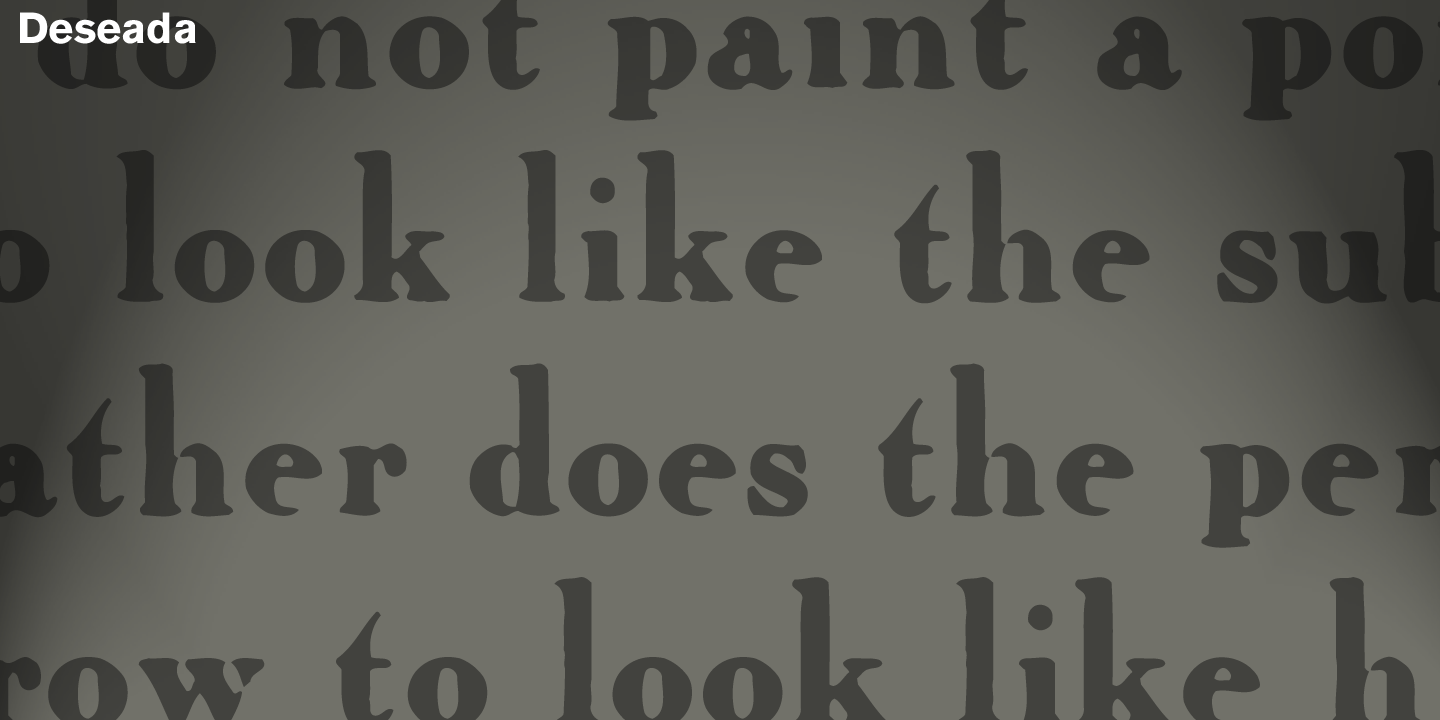
This passionate typeface is perfect for romantic restaurants, luxury fashion brands, jewelry boutiques, beauty salons, wedding planners, romantic getaway resorts, perfume packaging, lingerie brands, valentine campaigns, intimate dining venues, love-themed events, and desire-driven marketing materials. The font's alluring design makes it ideal for projects that celebrate passion, romance, and the irresistible appeal of products and experiences that capture hearts and fulfill deepest desires with emotional connection.
Deseada Font is exciting because it embodies passionate desire and romantic allure through its seductive letterforms and love-inspired character structure. The font's flowing curves and intimate proportions create an atmosphere of attraction, elegance, and emotional intensity, making it perfect for brands that want to convey romance, sophistication, and the magnetic appeal of truly desirable experiences. Its captivating personality ensures instant attraction while maintaining excellent readability across various romantic applications.
The Deseada Font family includes multiple passionate variations: Light Whisper, Regular Romance, Medium Passion, Bold Desire, and Black Seduction weights, each available in standard and elegant versions. Special romantic editions feature heart alternates, love ornaments, and passionate symbols that enhance the font's romantic appeal, providing designers with comprehensive tools for creating authentic desire-focused communications.
Capture hearts with irresistible design using Deseada Font Free Download – a typeface that embodies romantic passion and sophisticated allure. Whether you're developing luxury branding, romantic marketing campaigns, or intimate event materials, this font delivers the passionate presence and seductive elegance your projects need while ensuring exceptional performance and captivating impact across all romance and luxury applications.